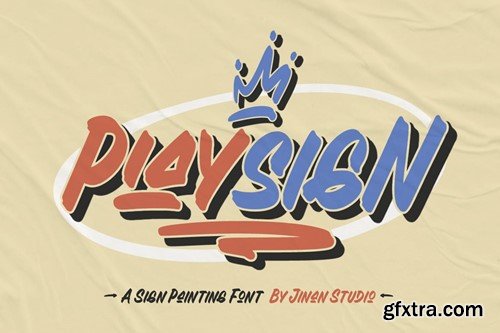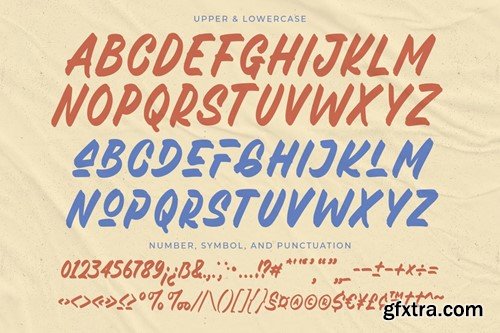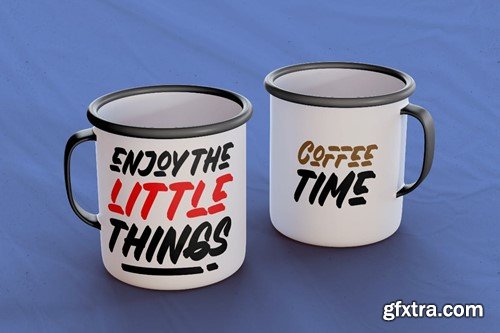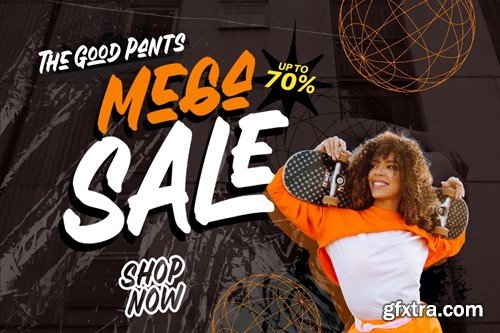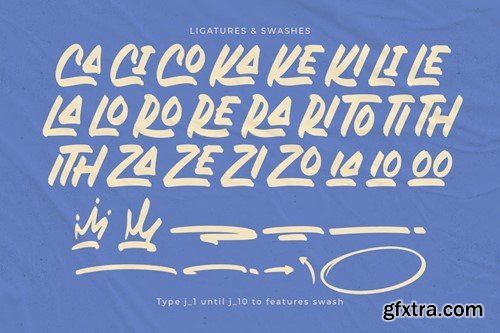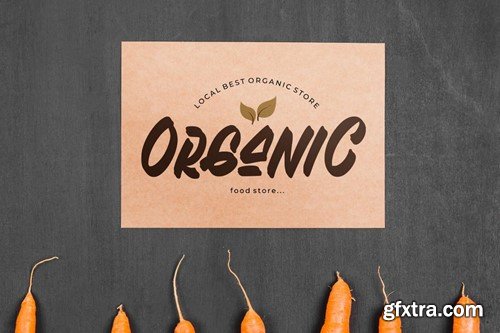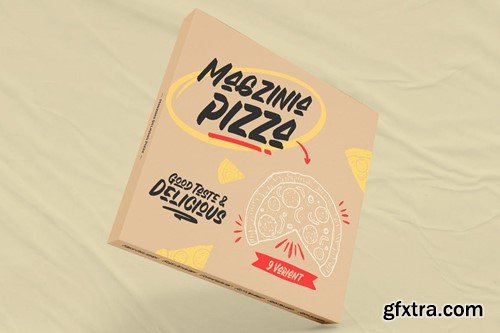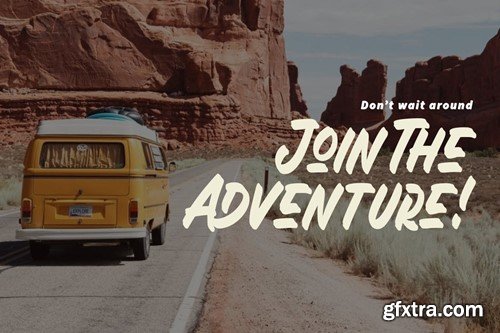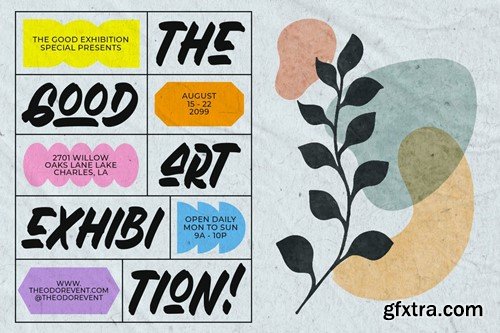
霹SIGN - 一款标牌绘画字体
Introducing Playsign a vibrant and dynamic sign painting display typeface that infuses creativity into every character stroke. With its meticulously crafted uppercase and lowercase letters, punctuations, numbers, symbols, and thoughtful ligatures, Playsign stands as a versatile typographic tool with boundless possibilities. Its seamless multi-language support ensures a global reach for your creative endeavors. Designed to ignite visual impact, Playsign is a perfect choice for diverse applications, elevating designs across logos, posters, product designs, print and digital advertising, branding, and beyond. Whether aiming for a bold statement or a subtle nuance, this font injects charisma into every project, embodying a harmonious blend of classic aesthetics and contemporary flair. Unleash your imagination with Playsign and watch your designs resonate with vibrancy and distinction." Features Type j_1 until j_10 to features swash, ligatures will automatically replace the standard letter pairs whenever available, when using any OpenType capable software. Download Files (.zip) Thank you a million times for downloading and using this font for your projects. Enjoy this font and happy creating!